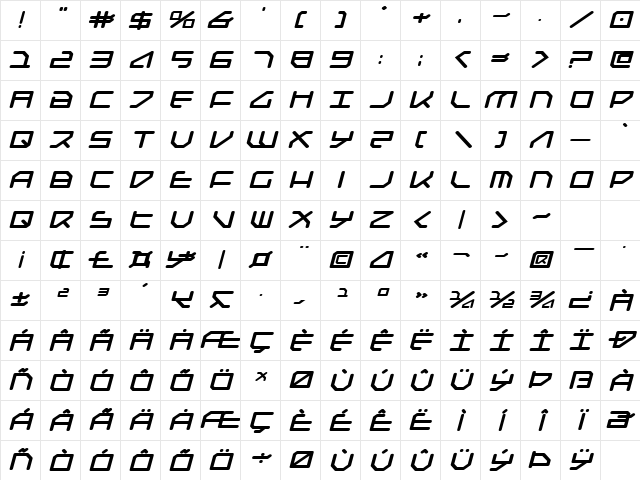
Complete Federapolis Expanded Bold Italic glyph index. Displaying only characters natively supported by Federapolis Expanded Bold Italic font.
Federapolis Expanded Bold Italic is a composed and adaptable typeface that performs quietly and consistently across a wide range of design contexts. The slanted form adds forward momentum and visual energy. Its bold stroke weight gives it real presence on the page.
Pro Tip: Use Federapolis Expanded Bold Italic for emphasis, pull quotes, and subheadings where its slanted energy can add rhythm to the layout.